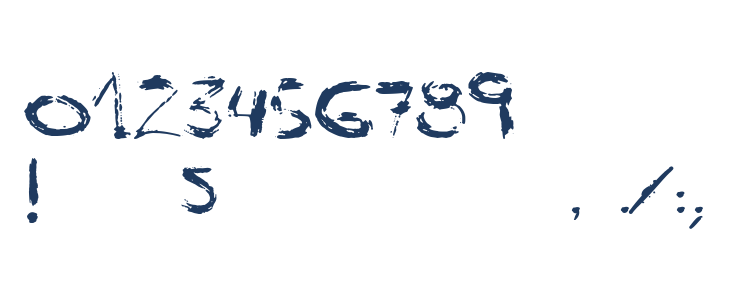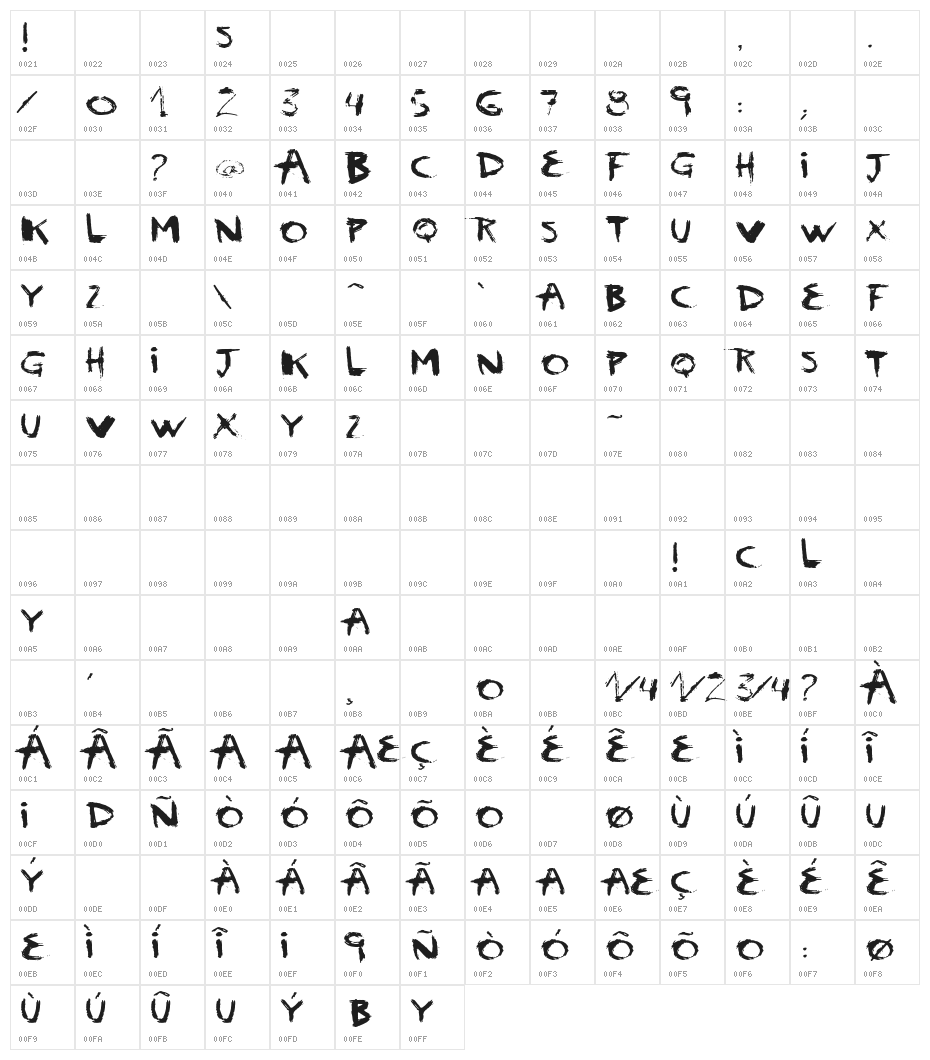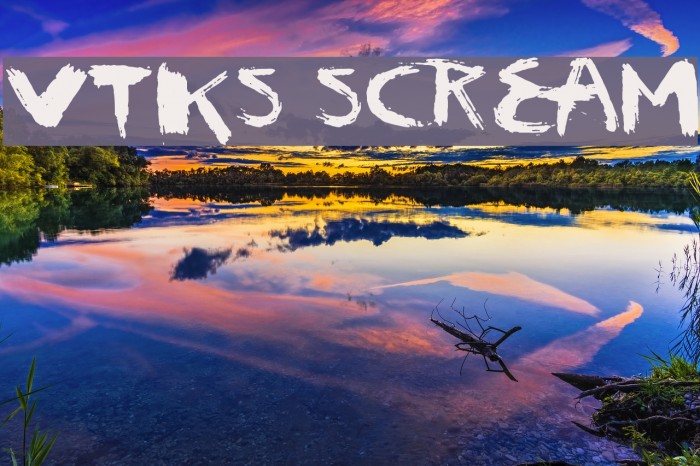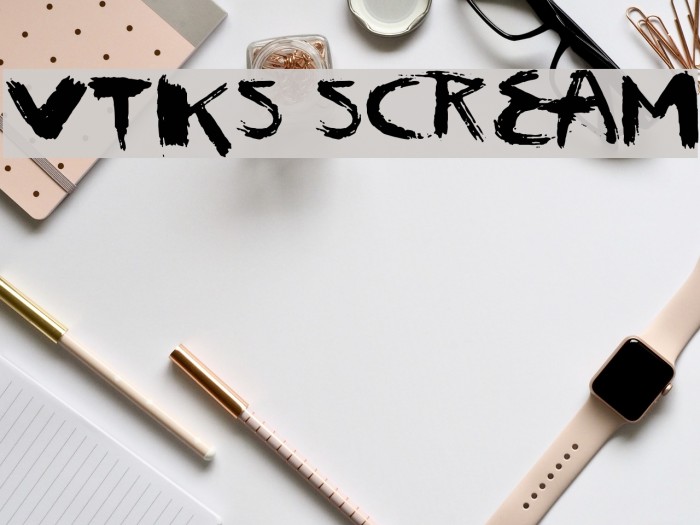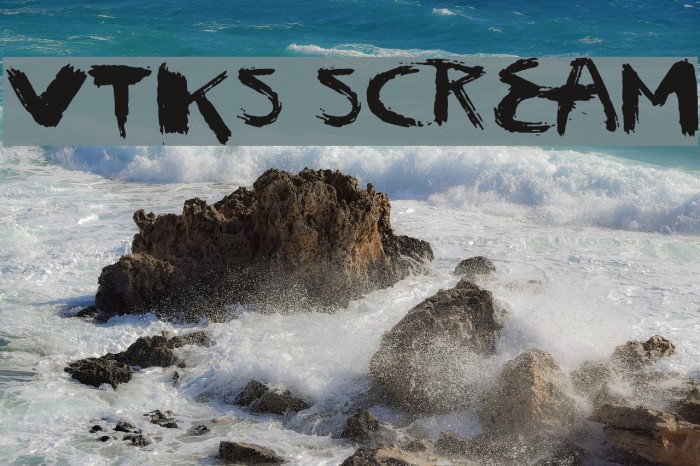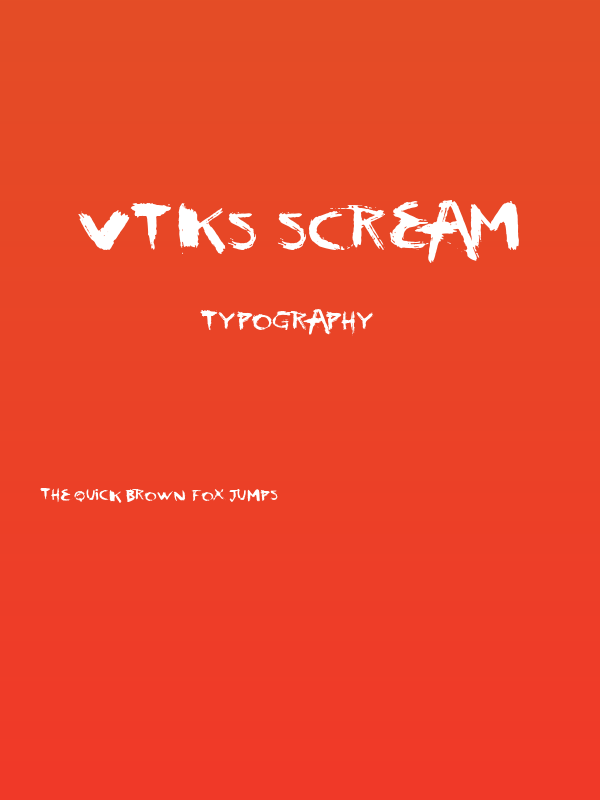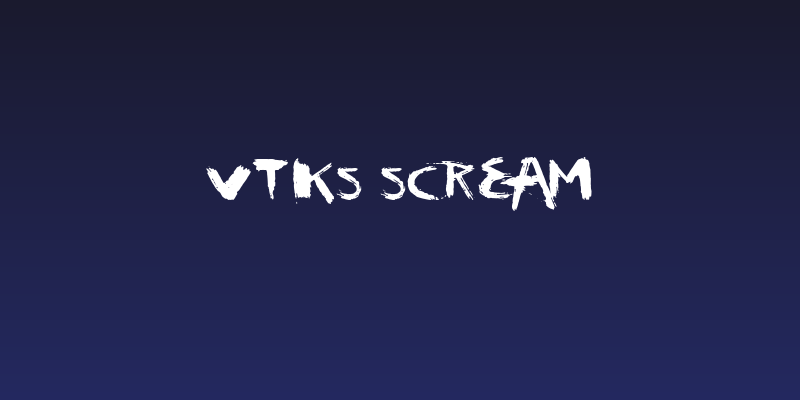
vtks scream Font
vtks scream Description
This font features a bold, distressed style with a rough, hand-painted appearance. The characters are irregular and jagged, giving off an edgy and intense vibe. The strokes are thick and uneven, creating a sense of urgency and raw energy. This font is highly decorative, with a chaotic yet artistic flair that makes it stand out. The uppercase and lowercase letters maintain a consistent style, with numbers and special characters following the same rugged aesthetic. The overall look is dramatic and impactful, suitable for designs that require a strong visual statement.
| Proposed Projects | Ideal for horror-themed posters, album covers, edgy branding, and artistic projects that require a dramatic touch. |